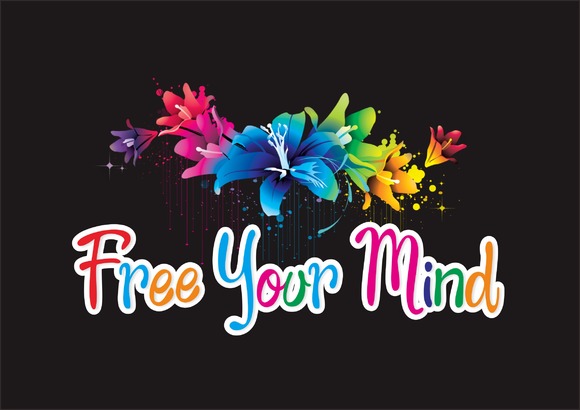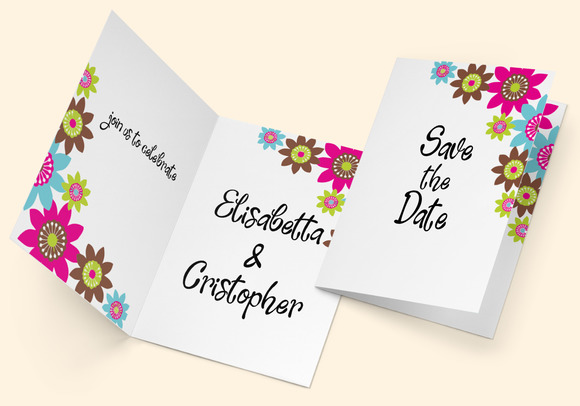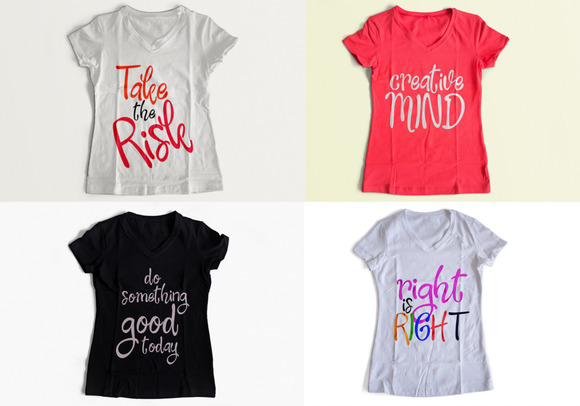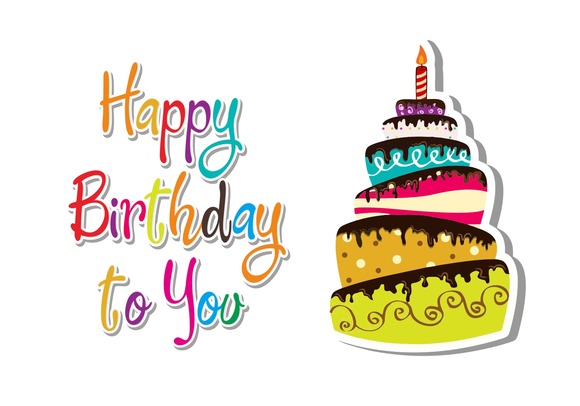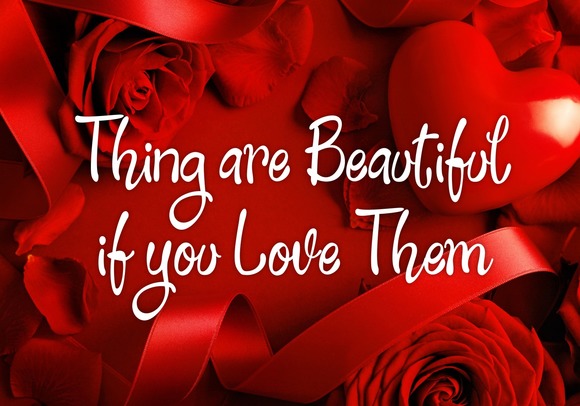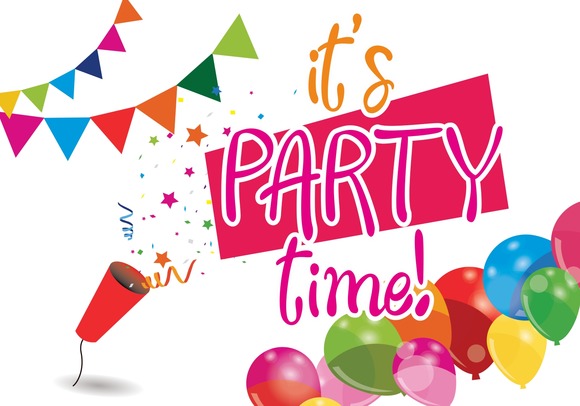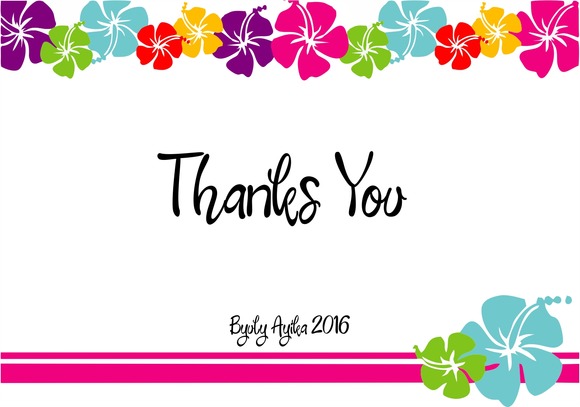
Free Your Mind Font
About Free Your Mind Font
Free your mind is a beautiful typeface and can be used for various purposes such as: headings, logos, posters, invitations, book covers, badges and much more!